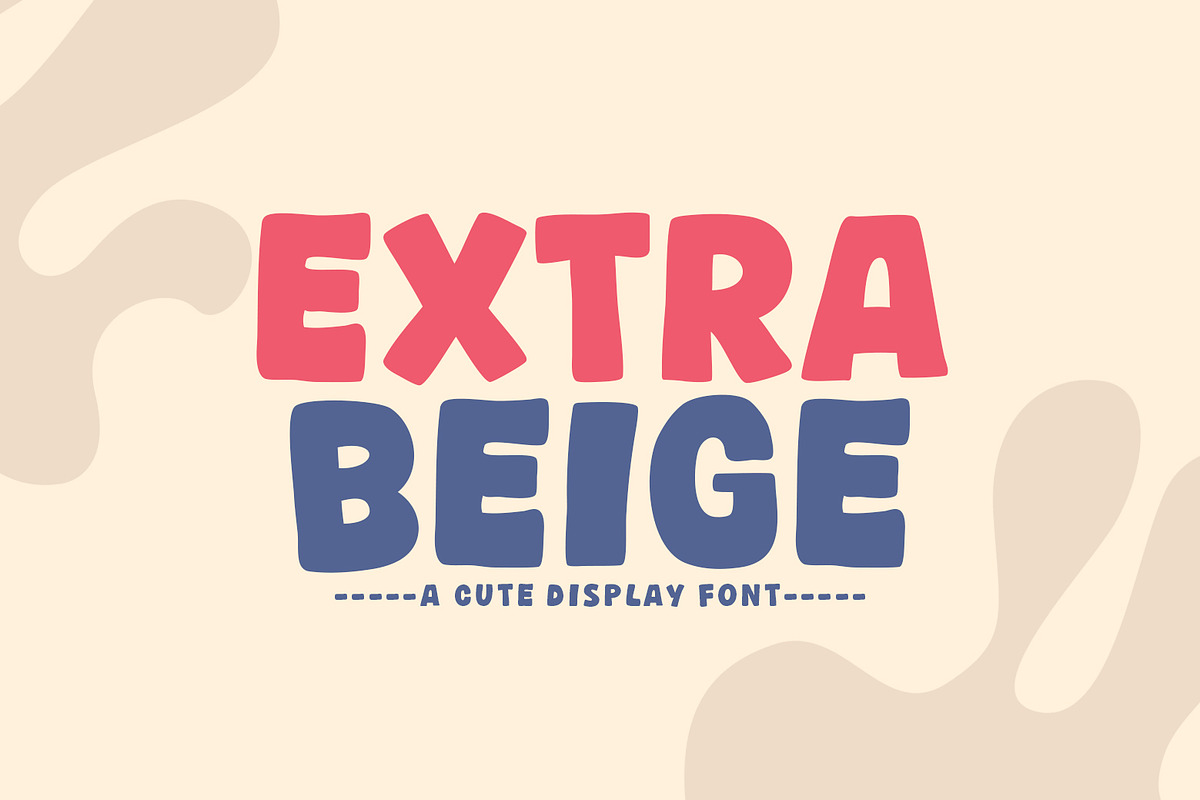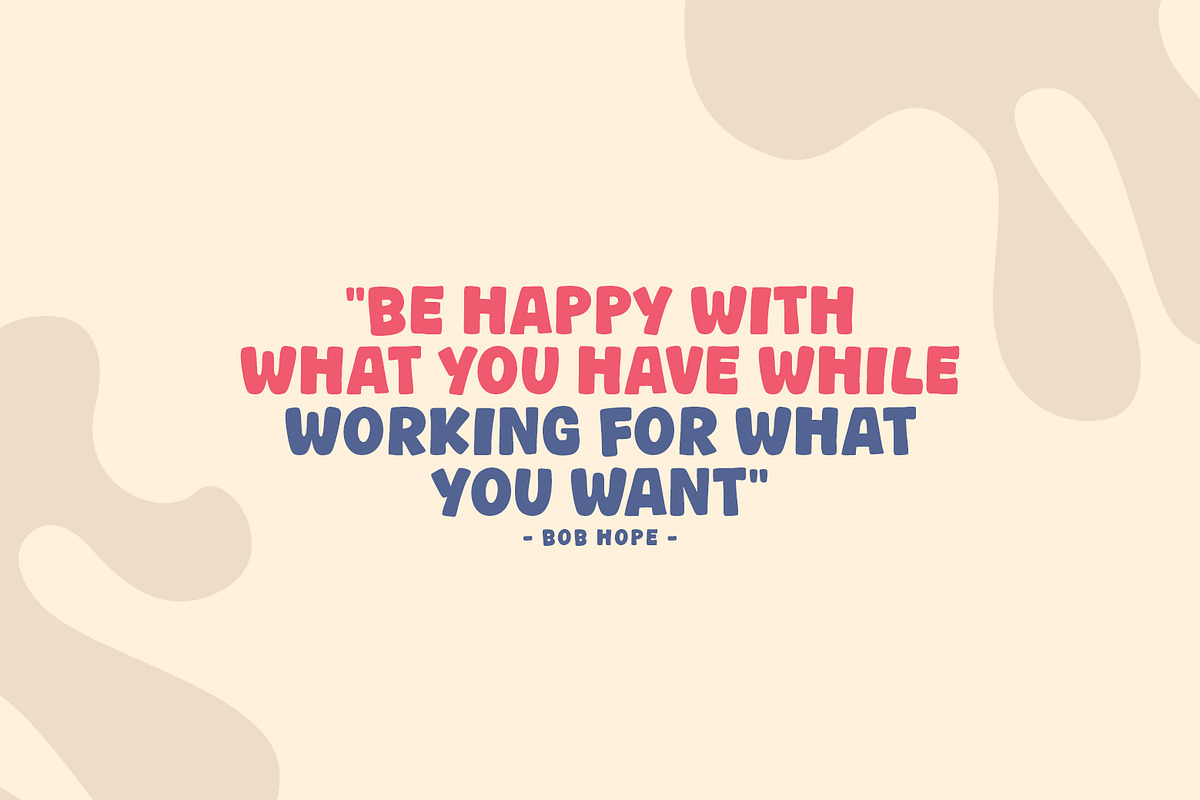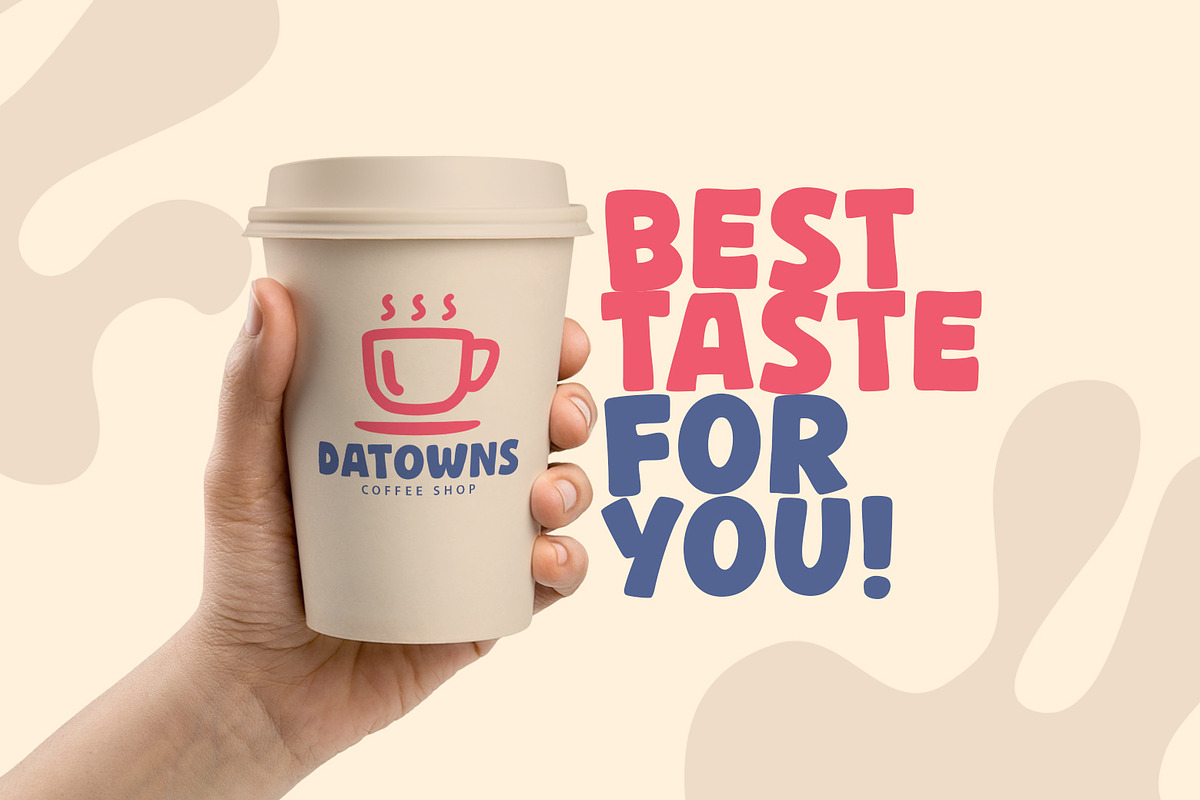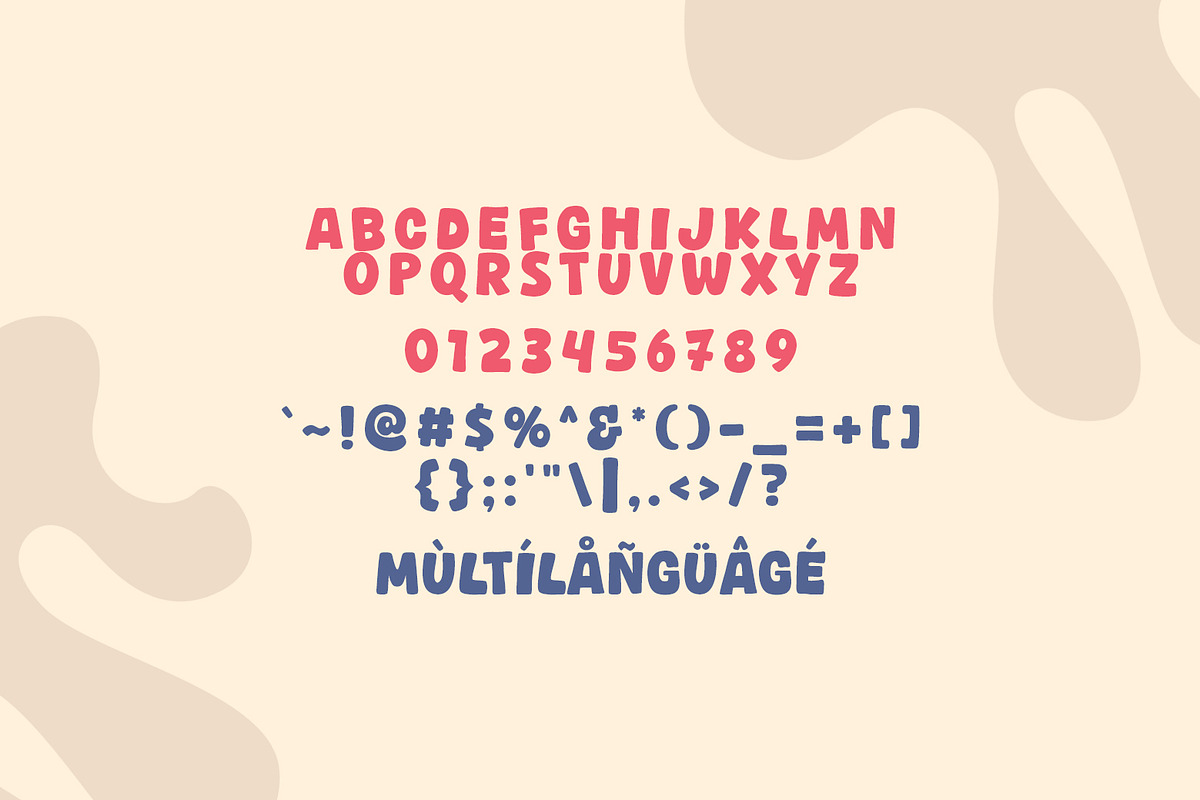
Extra Beige
Introducing, Extra Beige font a fun display typeface with cheerful theme for your fun project. Extra Beige font suitable for logo, branding, greeting card, poster and any design that you create.